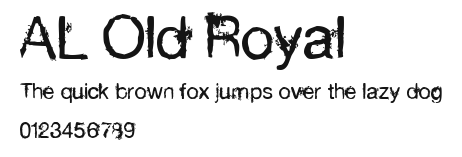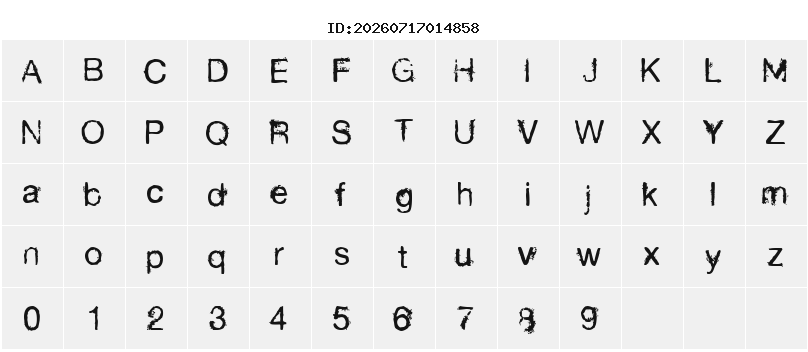
• Font Name: AL Old Royal
AL Old Royal.ttf is a modern, elegant sans-serif font designed for ultimate readability and visual harmony. Perfect for branding, headlines, web design, and print materials.